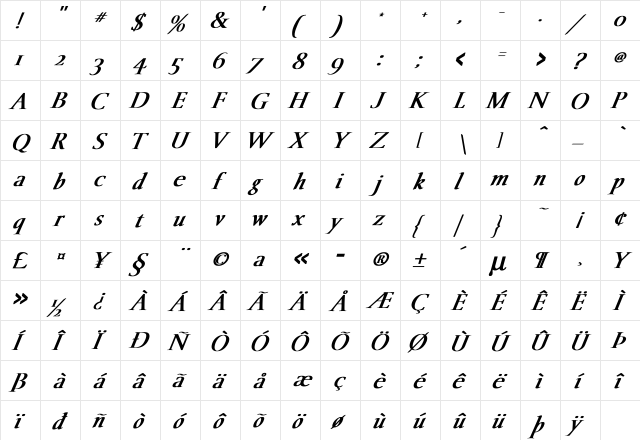
Rancho Bold Italic
Design Context for Rancho Typeface
Rancho takes a measured approach to typography — its balanced proportions and neutral character make it a reliable workhorse for both digital and print work. The dynamic lean of this cut emphasises speed and emphasis in any layout. The heavy weight commands attention and anchors typographic hierarchies.
Pro Tip: Use Rancho for emphasis, pull quotes, and subheadings where its slanted energy can add rhythm to the layout.